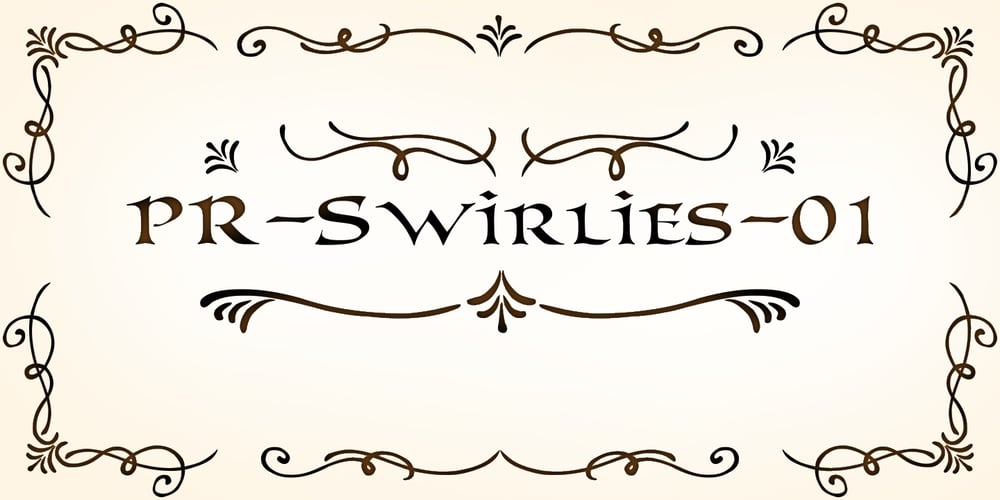
PR Swirlies 01 Font Family was designed by Peter Rempel and published by PR Fonts. PR Swirlies 01 contains 2 styles and family package options. This font is a collection of simple calligraphic ornaments suitable for invitations, gift tags, and anything that can benifit from a “spoonful of sugar” visually. The “Sand Drift” version combines well with: PR Bramble Wood 1, PR Bramble Wood 2, PR Hallow Doodles 01, PR Hallow Doodles 02, PR Cauldron, PR Swirlies 01], PR Swirlies 05.